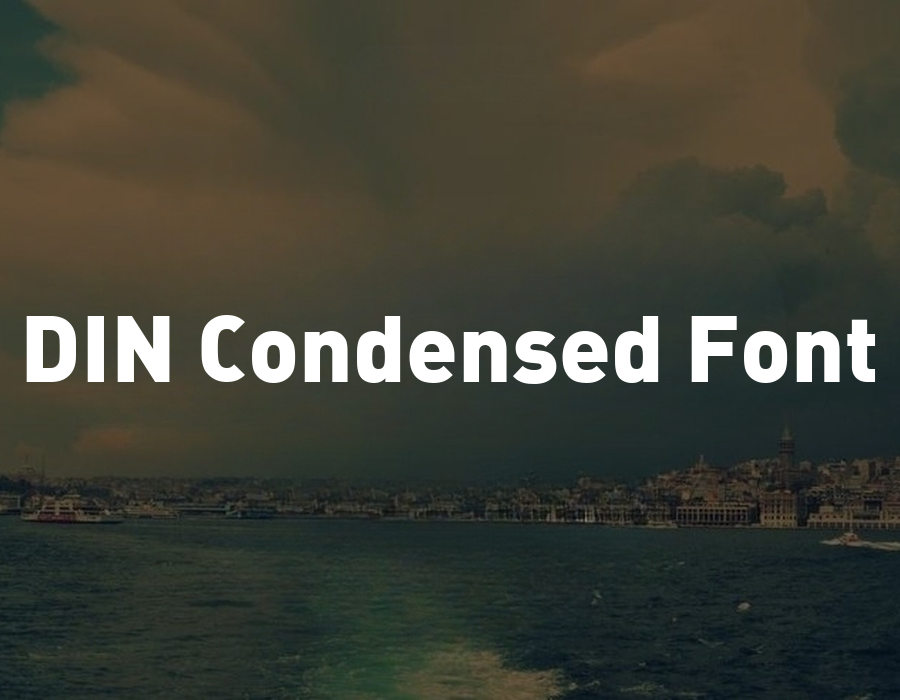
About Din Condensed Font
DIN Condensed is a narrower variant of the iconic DIN typeface, a geometric sans-serif known for its clarity and neutrality. It retains the functional, no-nonsense character of the original but with condensed proportions that allow for more text in limited horizontal space. This makes it exceptionally useful for technical tables, information signage, transportation systems (like railway or airport graphics), and contemporary editorial design where a bold, structured, and efficient typographic voice is required. Its straightforward geometry gives it a timeless, authoritative presence.